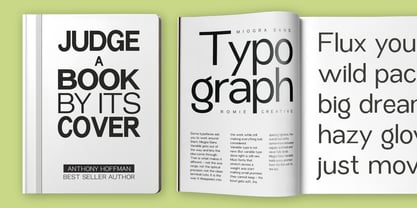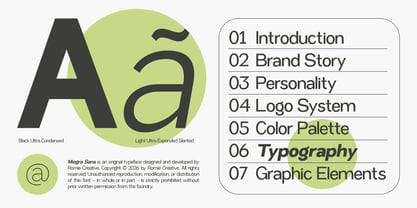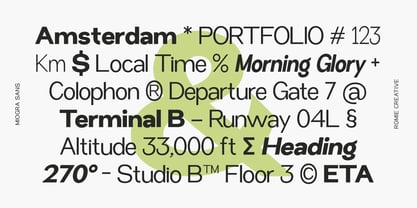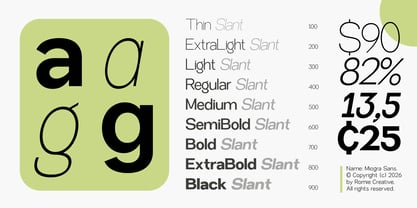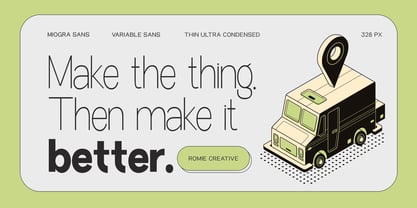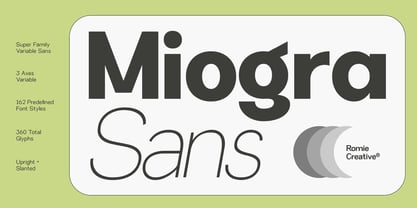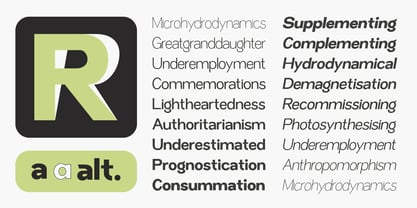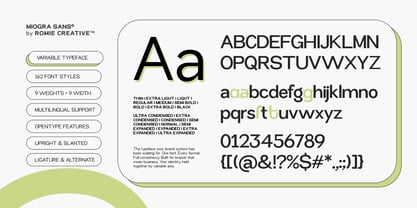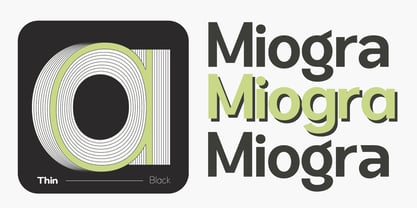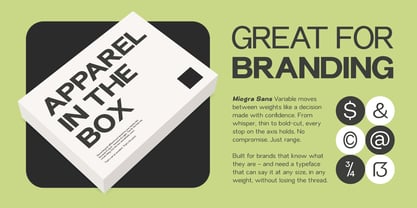
Miogra Sans
by Romie Creative
The Miogra Sans Font Family was designed by Romi Rahmadi and published by Romie Creative. Miogra Sans contains 145 styles and family package options. More about this family
Miogra Sans is a modern, highly versatile variable sans-serif typeface designed for flexibility and clean visual impact. It features a contemporary geometric structure with smooth curves and balanced proportions, making it suitable for both display and text use. This typeface includes multiple variable axes, allowing designers to adjust weight, slant, and other stylistic attributes for precise customization. With a wide range of predefined styles and an extensive glyph set, Miogra Sans supports diverse design needs and multilingual typography. Its design combines clarity with personality: bold weights appear strong and confident, while lighter styles feel elegant and refined. The availability of both upright and slanted versions enhances its adaptability across branding, editorial layouts, digital interfaces, and creative projects. Overall, Miogra Sans is a flexible, modern font family that blends functionality with a distinctive, contemporary aesthetic.